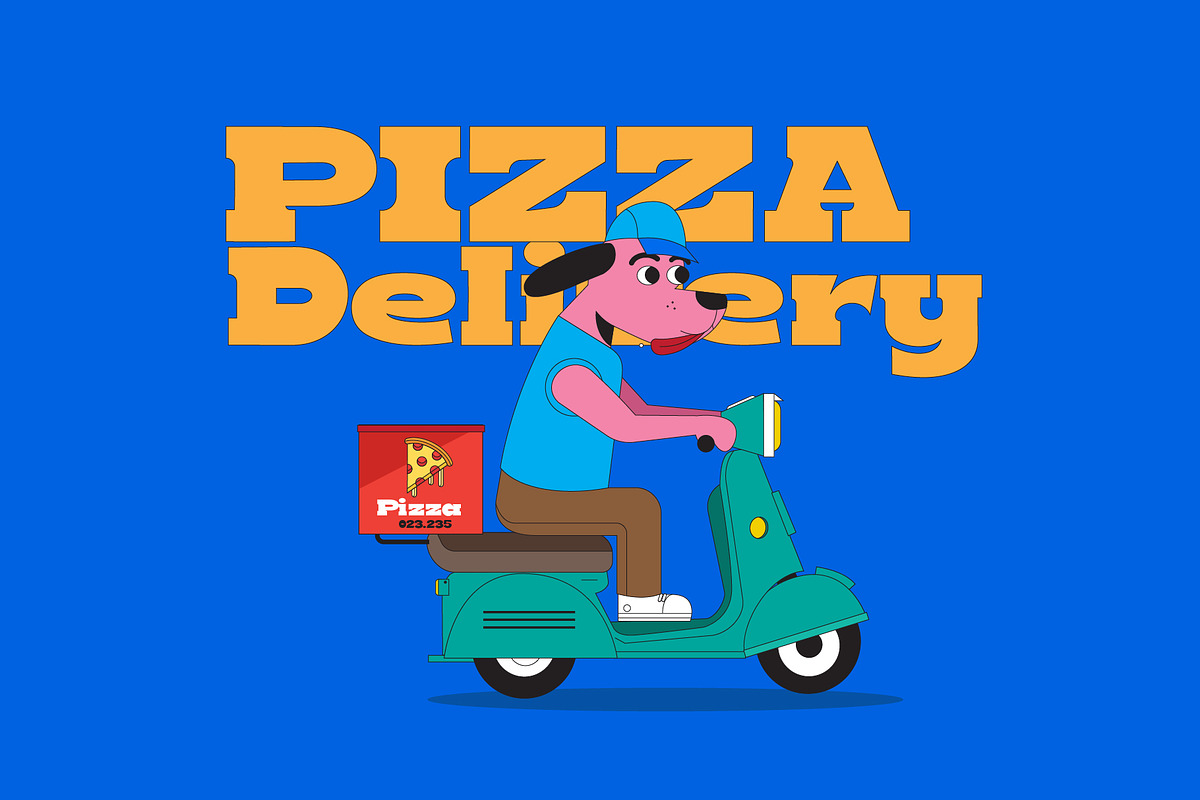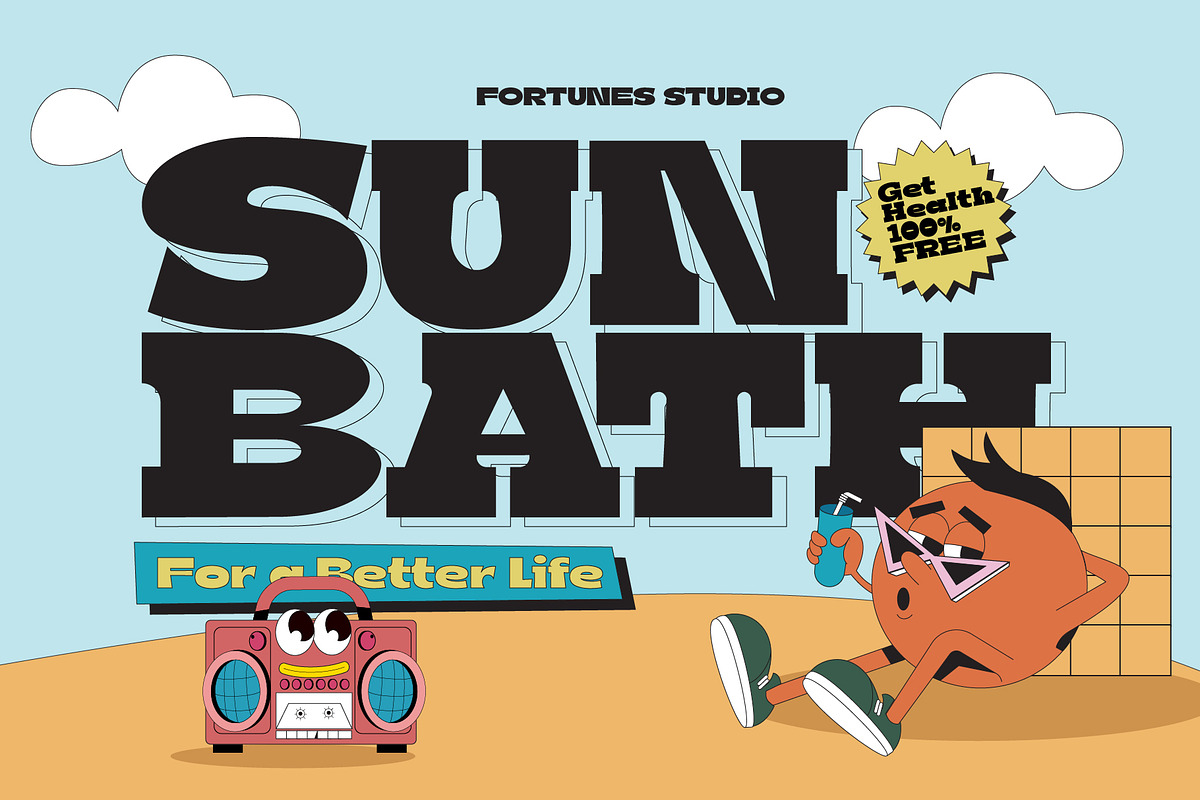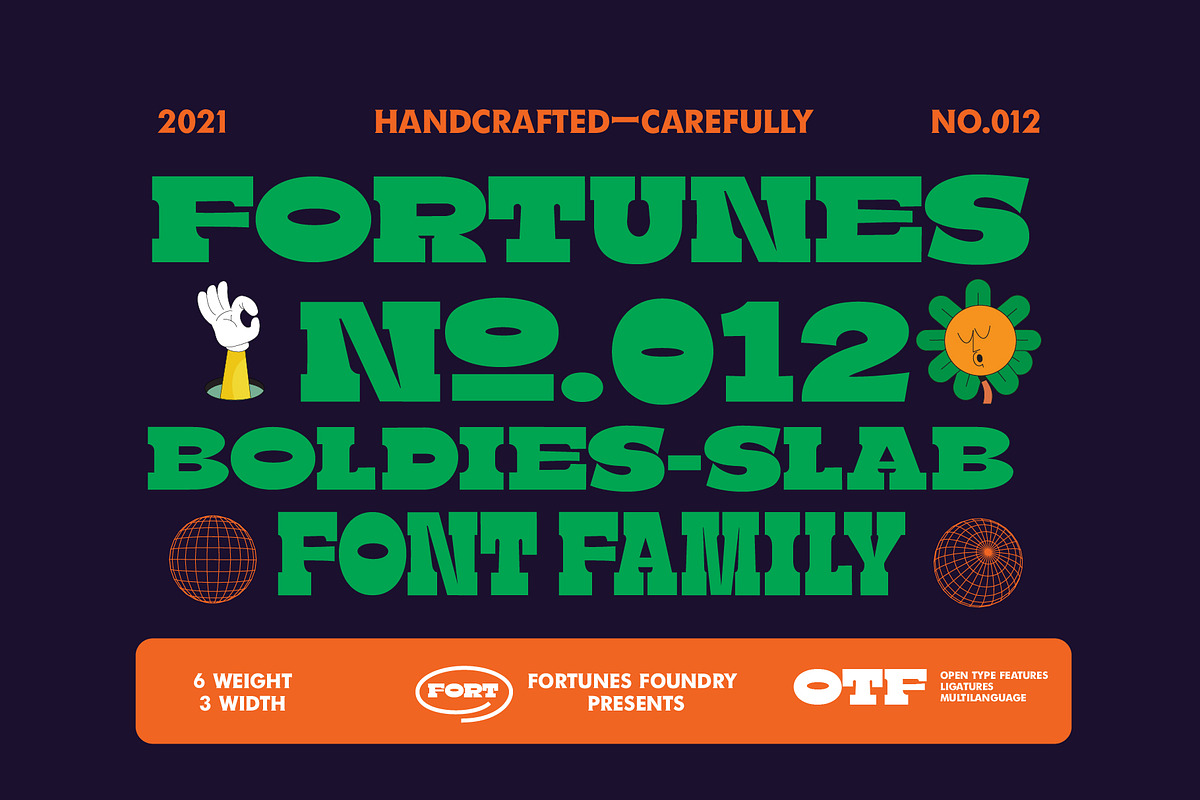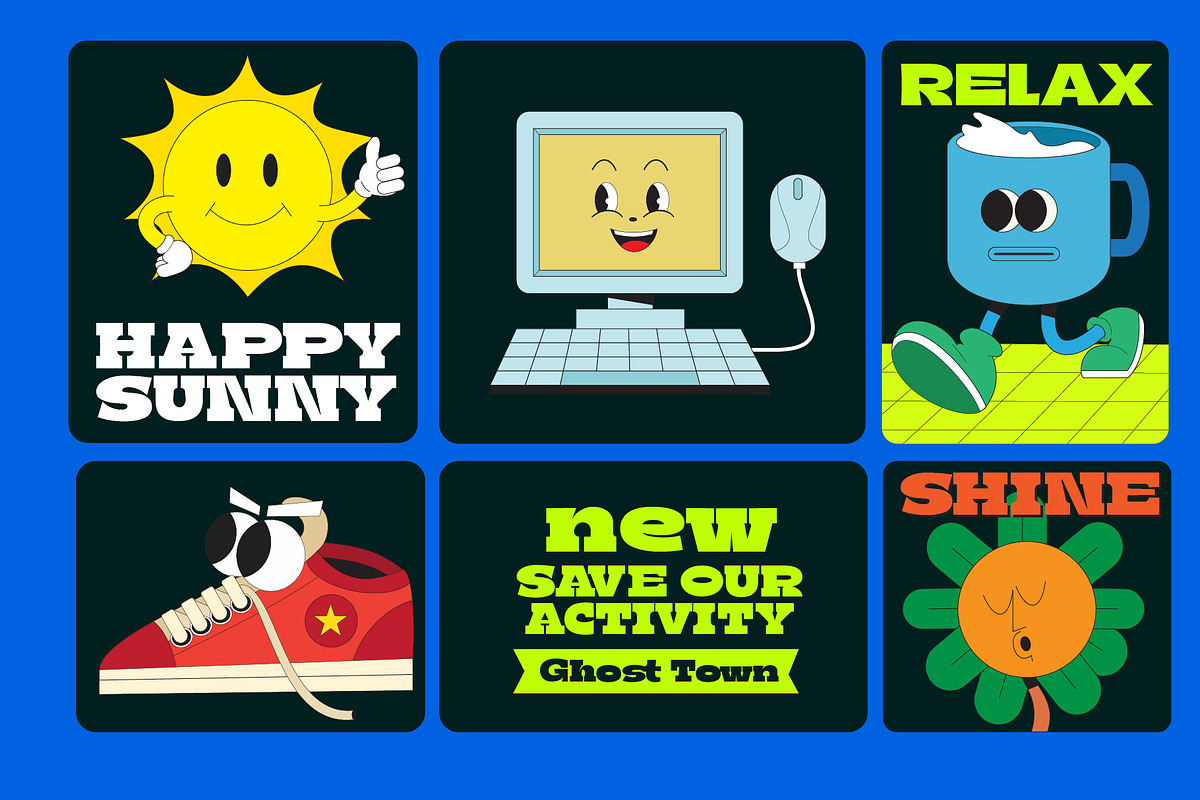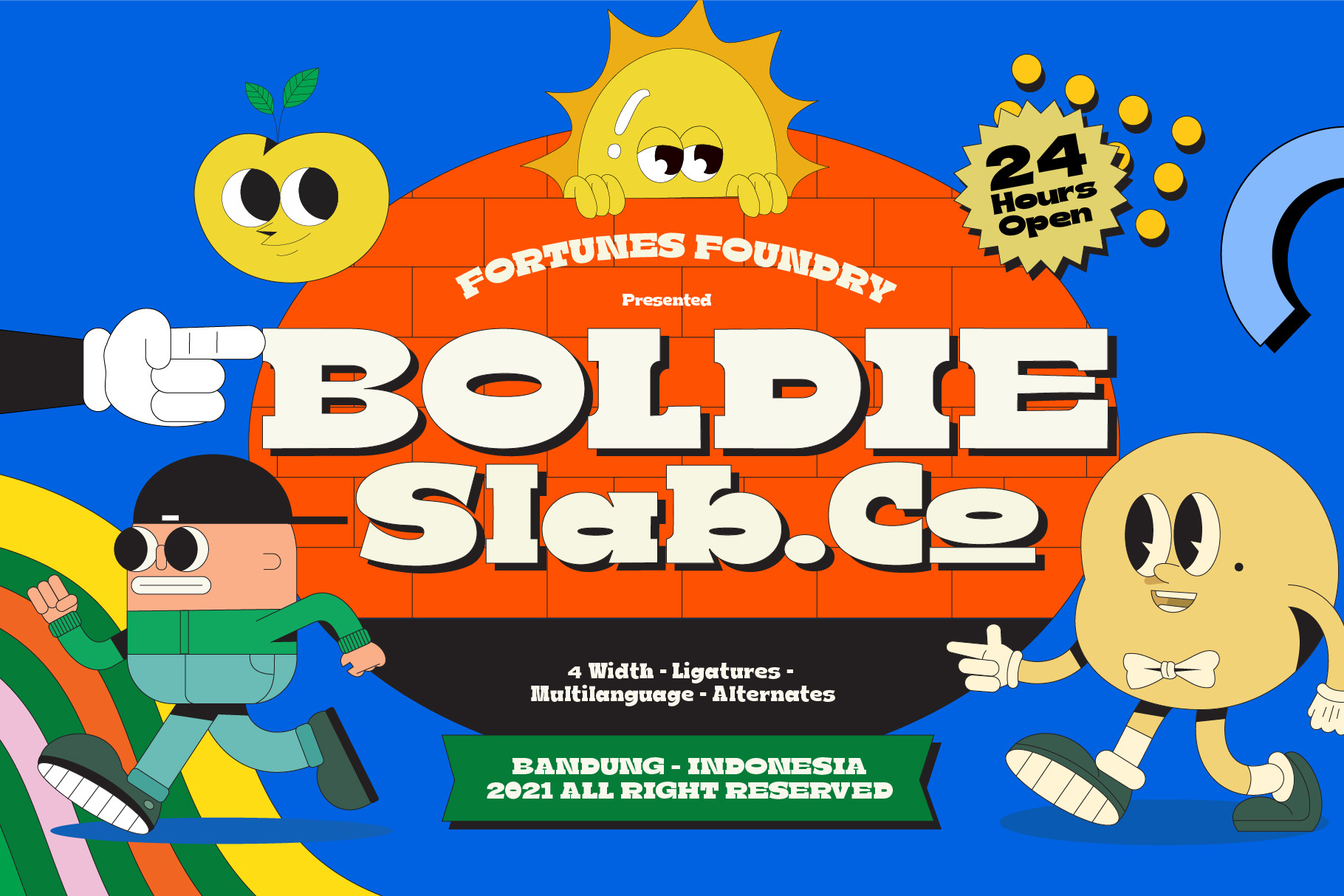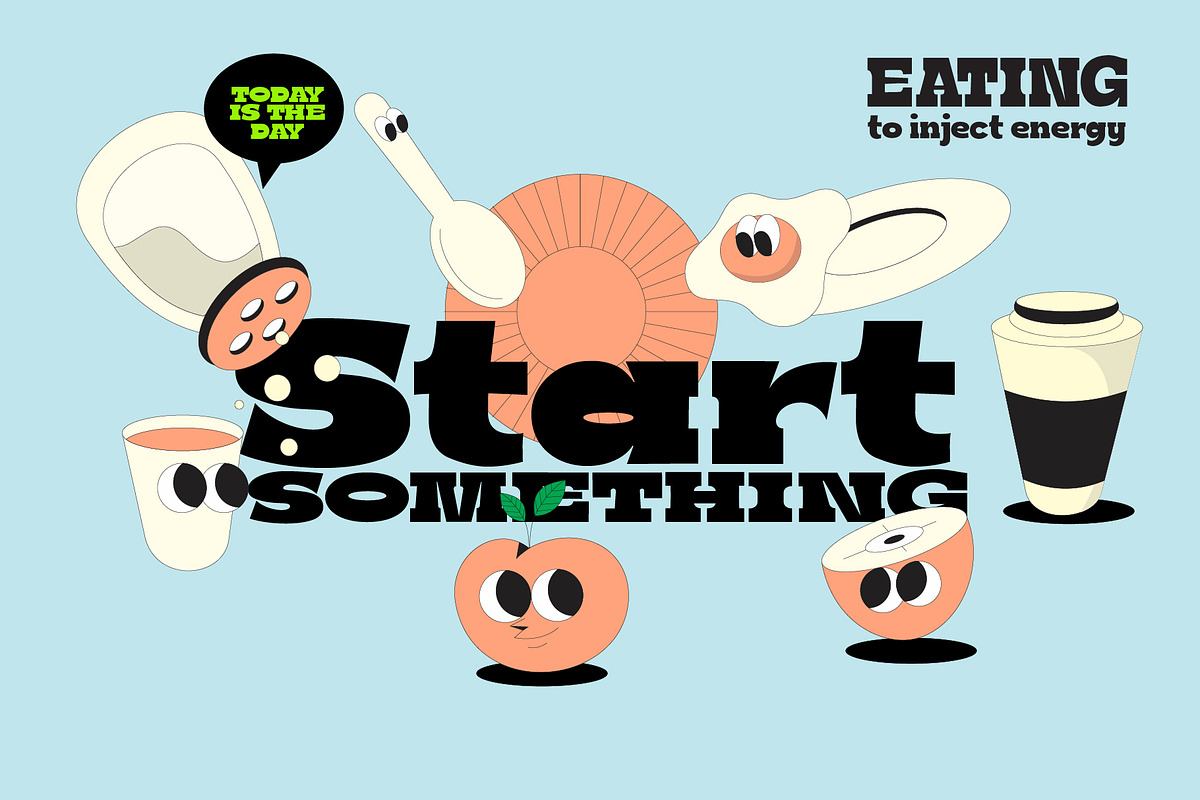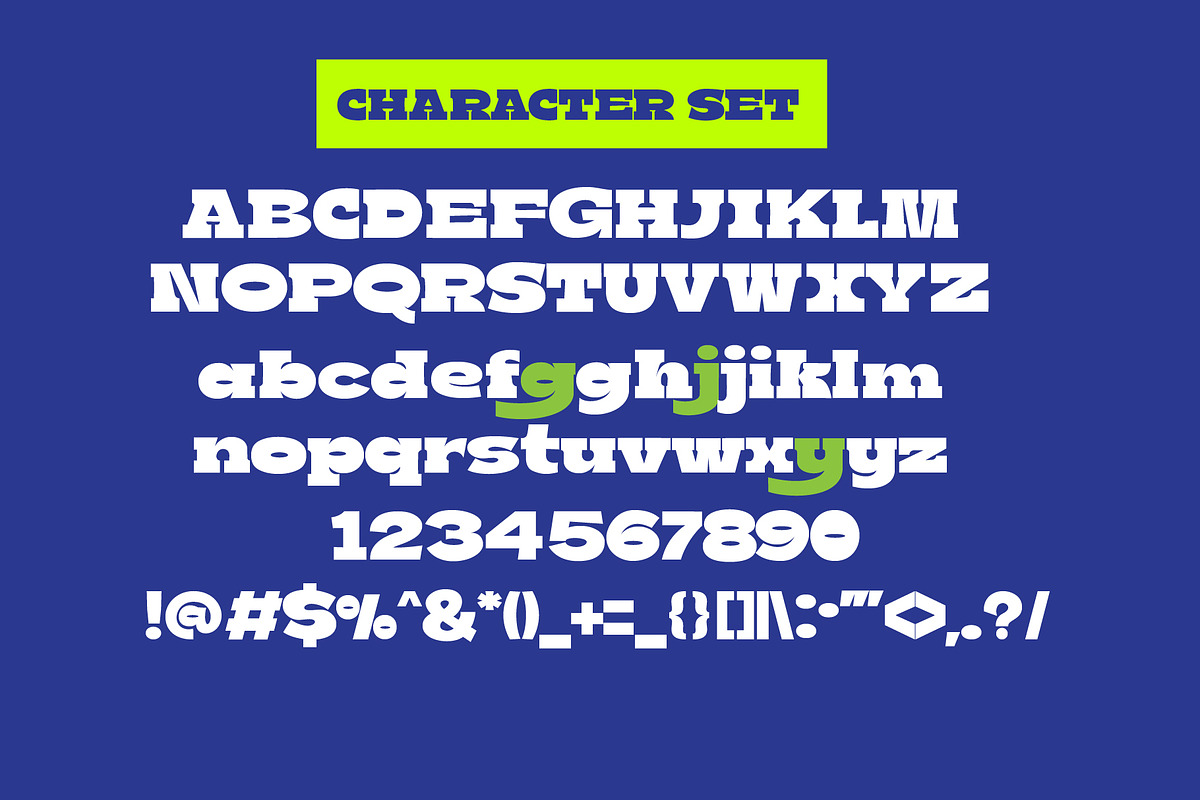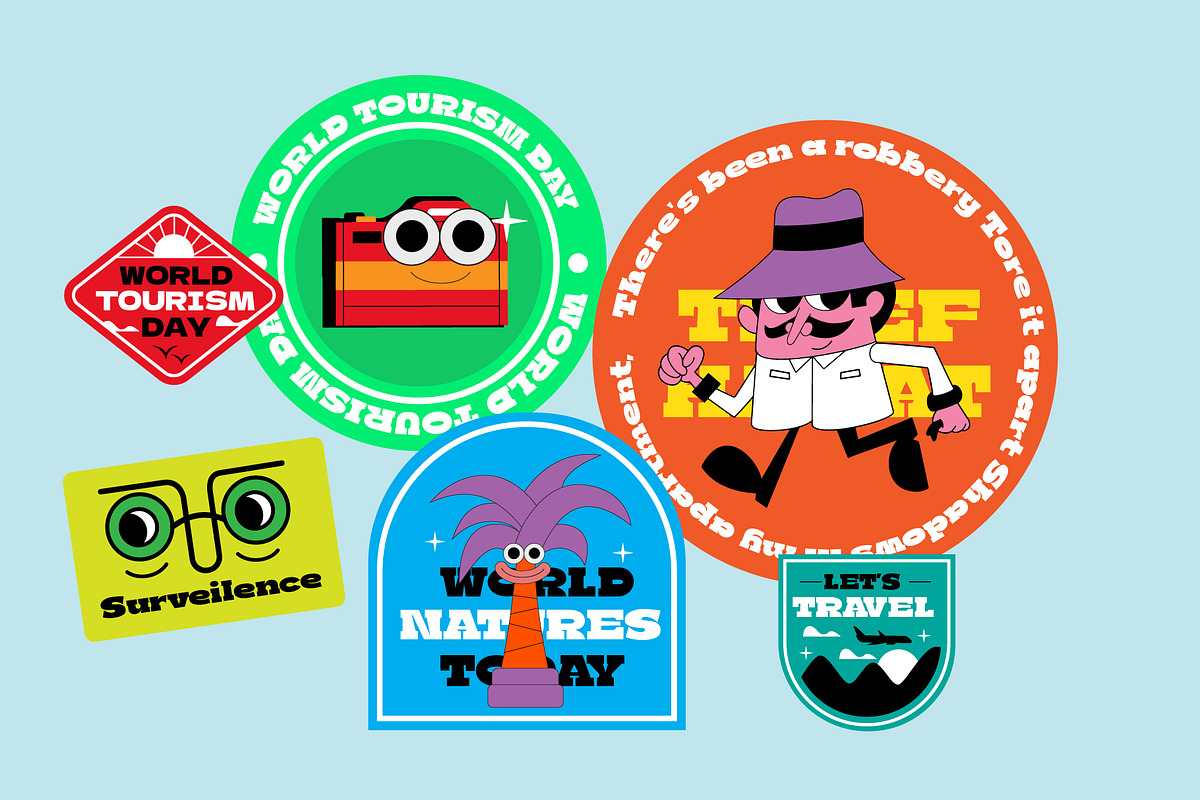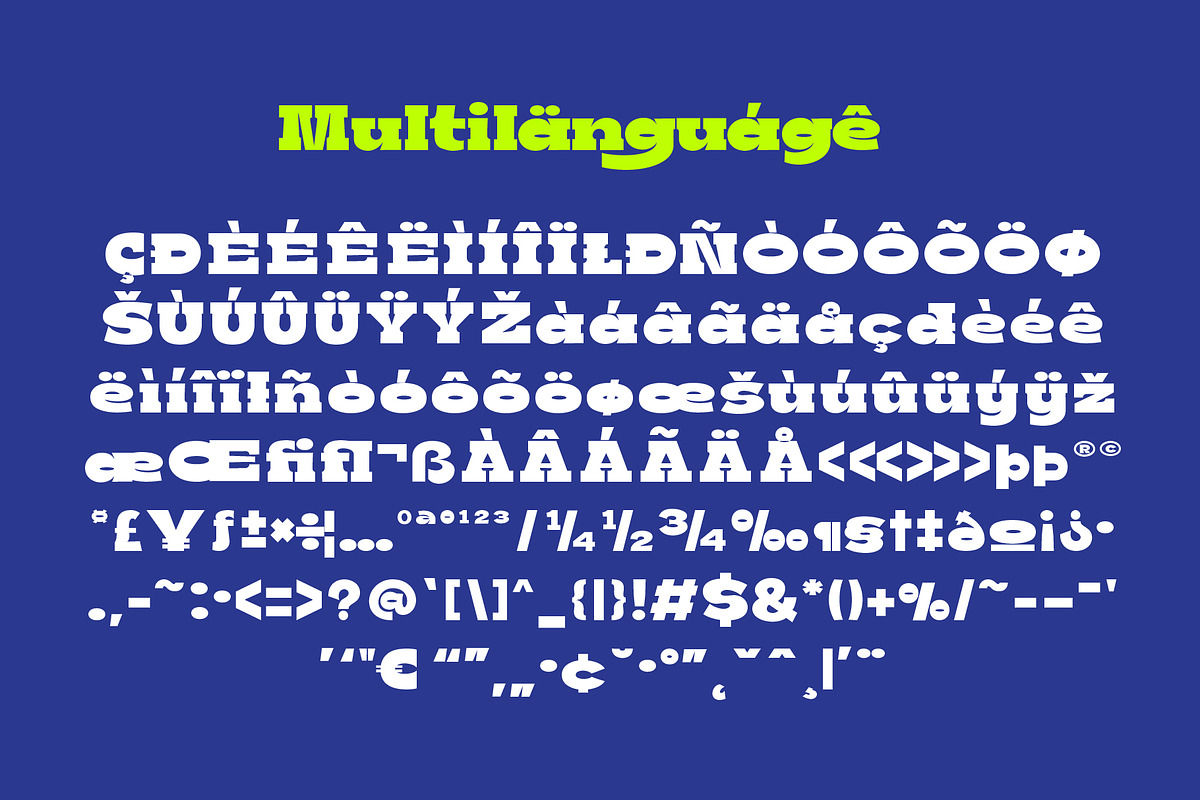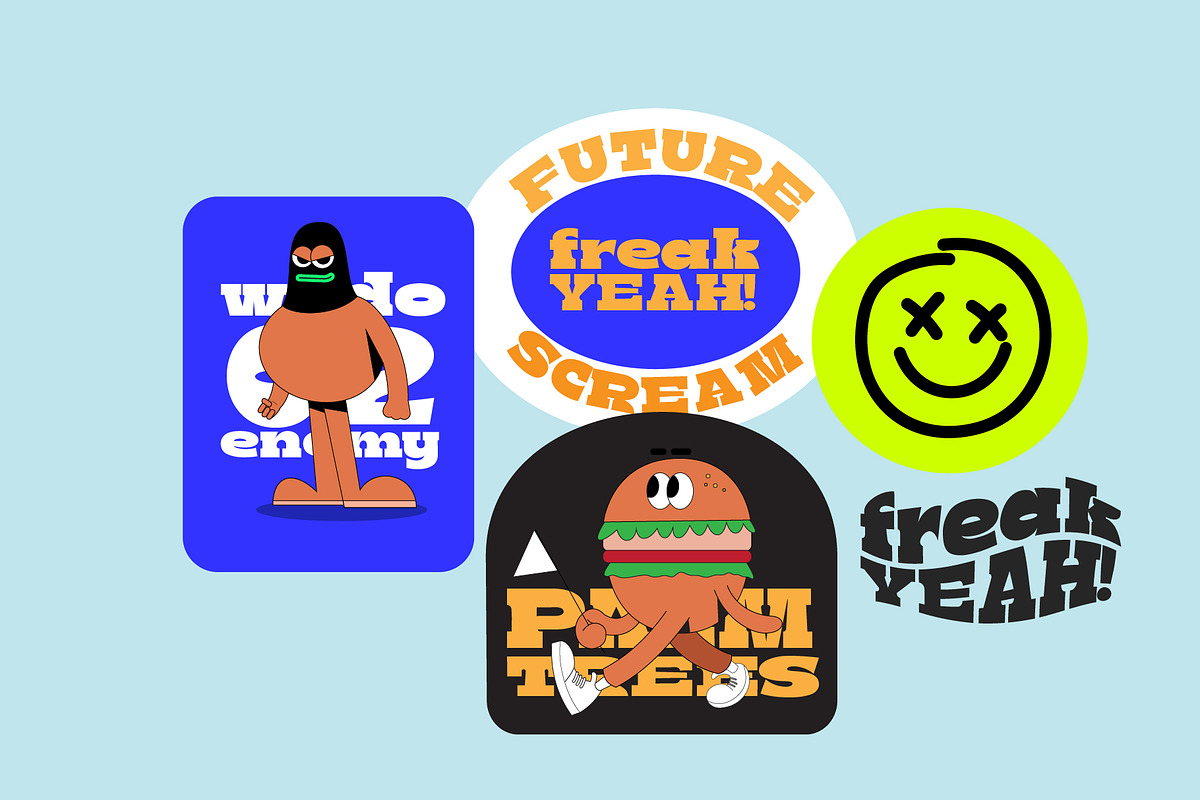
Boldie Slab Font Width
Introduced a Bolide Slab
Boldieslab is a font width display type with slab contrast. bring if the old west and the 70s had a lovechild with not a unformal usage, it's the perfect typeface for adding sophisticated playfulness to any design project.
- Caps, Lower, number, punctuation, symbols, ligatures, multilingual glyphs, Alternates